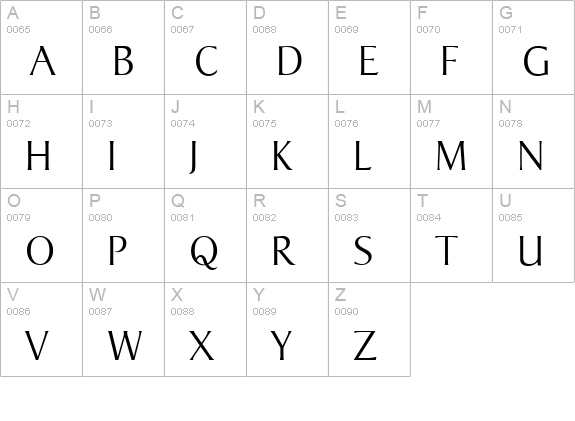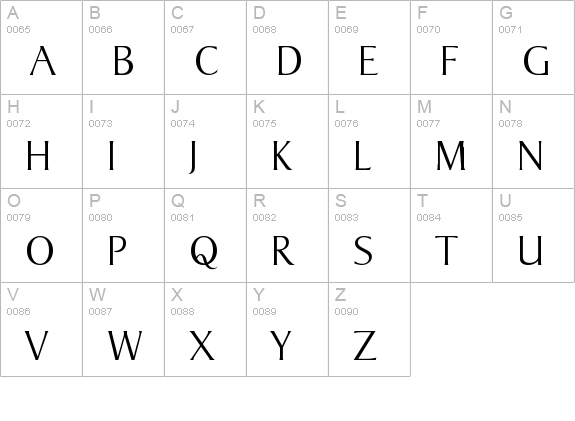
SigvarSerial-Xlight-Regular Font Details
SigvarSerial-Xlight-Regular is the standard, neutral variant in the SigvarSerial typeface family \xE2\x80\x94 well suited to general body text, paragraphs, and standard typographic work.
Introducing SigvarSerial-Xlight-Regular, a sleek and modern typeface that exudes elegance and sophistication. This font is perfect for creating clean and professional designs, whether for print or digital media. With its slender letterforms and subtle curves, SigvarSerial-Xlight-Regular adds a touch of refinement to any project. The best part? This font is available for free download at FontsMarket.com. Take advantage of this opportunity to enhance your design projects with SigvarSerial-Xlight-Regular and elevate your work to the next level. Whether you're working on branding, editorial design, or web design, this versatile font is sure to make a lasting impression. Download SigvarSerial-Xlight-Regular today and unleash your creativity!